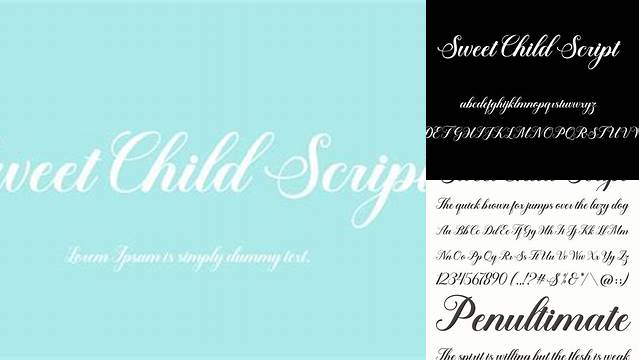
Hey guys! Ever stumbled upon a font that just screams personality? Thatâs totally the vibe with the Sweet Child Script Regular font. If youâre on the hunt for something thatâs playful yet sophisticated, with a touch of handwritten flair, then youâve hit the jackpot. This font is a real gem, guys, and the best part? You can grab a sweet child script regular font free download. Itâs perfect for everything from wedding invitations that need that extra romantic touch to quirky branding for your small business. Think about those cute little bakery signs or personalized gift tags â this font just works. Weâre going to dive deep into why this font is so popular, where you can snag that free download, and some awesome tips on how to use it to make your projects pop. So, grab a coffee, get comfy, and letâs explore the wonderful world of Sweet Child Script!
The Allure of Handwritten Fonts: Why Sweet Child Script Stands Out
So, why are handwritten fonts like Sweet Child Script so darn popular these days? Well, in a world dominated by crisp, digital perfection, thereâs something incredibly appealing about a font that feels personal and authentic. A sweet child script regular font free download brings that human touch right to your screen. Itâs like a friendly wave from the designer, adding a layer of warmth and approachability that you just donât get with standard block lettering. This font, in particular, has this amazing balance. Itâs got the flowing curves and slight imperfections that make it look genuinely handwritten, but it's also super legible. You don't have to squint to read what it says, which is a big win! Plus, the 'regular' weight strikes that perfect chord â itâs not too thin that it disappears, and not too bold that it overpowers. Itâs just right, making it incredibly versatile for a wide range of applications. Imagine using it for your personal blog, greeting cards, or even short, catchy taglines. It adds character without being distracting. Itâs this blend of style and substance that makes Sweet Child Script a go-to for so many creative projects. Itâs more than just letters; itâs a feeling, a personality, all wrapped up in a beautiful, downloadable package.
Sweet Child Script vs. Other Script Fonts: What Makes It Special?
So, the market is absolutely flooded with script fonts, right? There are tons of them out there, each with its own personality. But what exactly makes the sweet child script regular font free download option so special compared to the crowd? Well, for starters, Sweet Child Script strikes a fantastic balance between elegance and approachability. Many script fonts can lean too far into being overly formal and stiff, or conversely, so casual they verge on illegible scribbles. This font, however, has this delightful middle ground. It feels personal, like a genuine handwritten note, but maintains a clarity thatâs crucial for readability. Its curves are smooth and graceful, yet thereâs a subtle, organic imperfection that prevents it from looking too manufactured. It's often compared to a friendly, flowing cursive thatâs easy on the eyes. Another key factor is its versatility. While some script fonts are designed for very specific uses (like ultra-formal wedding invites), Sweet Child Script is surprisingly adaptable. It can add a touch of romance to wedding stationery, a playful charm to kids' party invitations, or a sophisticated, yet friendly, vibe to branding for small businesses. Itâs not overly embellished, which means it wonât clash with other design elements. Itâs this combination of genuine charm, excellent readability, and broad applicability that sets Sweet Child Script apart from many of its counterparts. It offers that handmade feel without sacrificing usability, making it a winner in my book, guys!
Creative Applications for Sweet Child Script: Beyond the Basics
Now that you've got your sweet child script regular font free download and it's all installed, the real fun begins: using it! While itâs a natural fit for invitations and greeting cards, letâs think outside the box, shall we? This font is fantastic for creating eye-catching social media graphics. Imagine using it for quotes on Instagram or Facebook â itâll grab attention instantly. For bloggers, itâs perfect for your website's header, blog post titles, or even signature lines. It adds a personal, branded touch that can really make your content stand out. Think about small business branding too! If you have a boutique, a cafe, or offer handmade crafts, Sweet Child Script can lend a warm, inviting, and professional feel to your logo, business cards, and packaging. It speaks of care and personal attention. What about digital scrapbooking? This font is ideal for journaling prompts or titles on your digital layouts, adding that scrapbook-y, handwritten feel. And letâs not forget merchandise design! Think t-shirts, mugs, tote bags with cute slogans or personalized messages. The readability of the 'regular' weight ensures your message comes across clearly, while the script style adds that unique flair. Don't be afraid to experiment, guys! Pair it with a simple sans-serif font for body text to create a beautiful contrast. The possibilities are truly endless when you let your creativity flow!
Designing with Sweet Child Script: Tips for Stunning Results
Okay, youâve got the sweet child script regular font free download, youâve installed it, and youâre ready to design. But how do you make sure your creations look stunning and not just, well, okay? Letâs talk tips, guys! First off, less is often more with script fonts. Sweet Child Script is beautiful, but using too much of it can make text overwhelming and hard to read. Use it strategically for headlines, short phrases, or key design elements. Pair it with a clean, simple sans-serif or serif font for longer blocks of text. This creates contrast and hierarchy, making your design easier to digest. Secondly, mind the spacing (kerning)! Sometimes, script fonts can have letters that are too close together or too far apart. Most design software allows you to adjust kerning. While Sweet Child Script is generally well-spaced, a little tweak here and there can make a huge difference in legibility and professional polish. Thirdly, consider the context. Where will this design be seen? If itâs for a website, ensure itâs legible on smaller screens. If itâs for print, make sure the size is appropriate. And don't be afraid of color! Sweet Child Script looks great in classic black or deep navy, but don't shy away from richer tones like burgundy, emerald green, or even a soft pastel if it fits your project's mood. Finally, test it out! Print a draft or view your digital design on different devices to catch any awkward spacing or readability issues before you finalize. Following these tips will help you leverage the full beauty of Sweet Child Script and create designs that truly shine, guys!
Exploring Ligatures and Alternates in Sweet Child Script (If Available)
One of the coolest things about more advanced script fonts is the inclusion of ligatures and alternate characters. While a basic sweet child script regular font free download might focus on the core letterforms, some versions or related font families might offer these little gems. Ligatures are special character pairs where two or more letters are joined together into a single glyph â like 'th', 'st', or 'ae'. They can make script text flow even more smoothly and look more organically handwritten. Alternate characters, sometimes called swashes or stylistic alternates, are different versions of a letter â maybe a capital 'A' with a flourish or a lowercase 's' with a longer tail. If your version of Sweet Child Script does have these, they can seriously elevate your design. How do you use them? Well, it depends on your software. Programs like Adobe Illustrator or InDesign have dedicated panels for OpenType features where you can easily access ligatures and alternates. Some simpler programs or web apps might automatically generate common ligatures. You'll want to explore your software's character or glyph panel to see what's available. Experimenting with these can add a unique, custom touch to your text, making it look less like a standard font and more like bespoke lettering. Itâs these little details that can really make your project sing, guys! Always check the font's documentation or character map to see if these features are included.
Sweet Child Script for Branding: Creating a Memorable Identity
When youâre building a brand, guys, you want something thatâs memorable, unique, and communicates your brandâs personality. Thatâs where a font like Sweet Child Script regular comes into play, especially when you're looking for that personal, approachable feel. Using this font for your branding can be a game-changer. Imagine a small boutique selling handmade jewelry; using Sweet Child Script for their logo and packaging instantly communicates warmth, care, and a personal touch. It suggests that the products are made with love and attention to detail, which is exactly what customers looking for artisanal goods want to see. Itâs also fantastic for service-based businesses that want to appear friendly and accessible â think life coaches, therapists, or event planners. The flowing, natural style can put potential clients at ease. When incorporating it, consider using it for your main logo or as a secondary brand element for taglines or calls to action. To ensure your branding is professional and versatile, itâs often best to pair Sweet Child Script with a more neutral, readable font for body text and longer descriptions. This ensures that while your brand has personality, it remains clear and functional. Always ensure you have the appropriate commercial license if you're using it for business, as a sweet child script regular font free download often pertains to personal use only. A well-chosen font is a powerful branding tool, and Sweet Child Script offers a beautiful blend of personality and legibility.
Font Alternatives: Similar Styles to Sweet Child Script
While Sweet Child Script is a fantastic choice, maybe you're looking for something slightly different, or perhaps the licensing isn't quite right for your needs. No worries, guys! There are plenty of other beautiful script fonts out there that offer a similar feel. If you like the flowing, friendly vibe of Sweet Child Script, you might want to explore fonts like Pacifico, Great Vibes, or Dancing Script. Pacifico is another very popular, free Google Font known for its relaxed, retro feel and excellent readability. Great Vibes offers a slightly more elegant, calligraphic flow, also often available for free personal use. Dancing Script has a lovely, bouncy baseline that adds a lot of character and dynamism. When searching for alternatives, look for keywords like